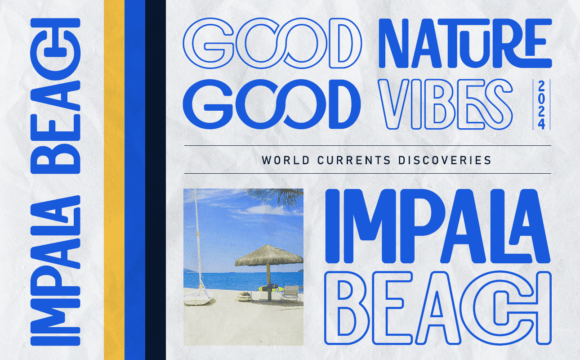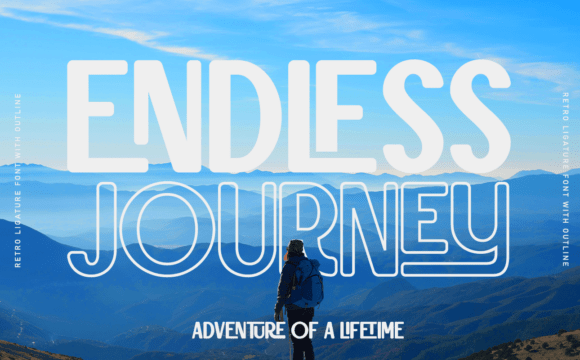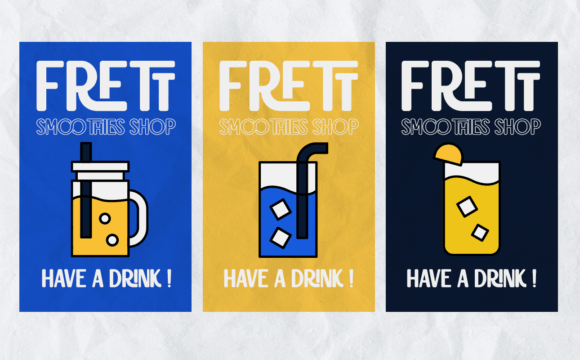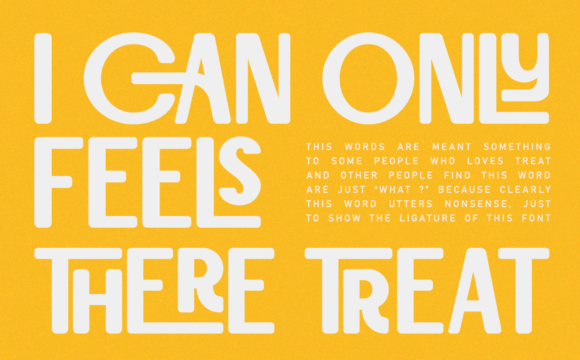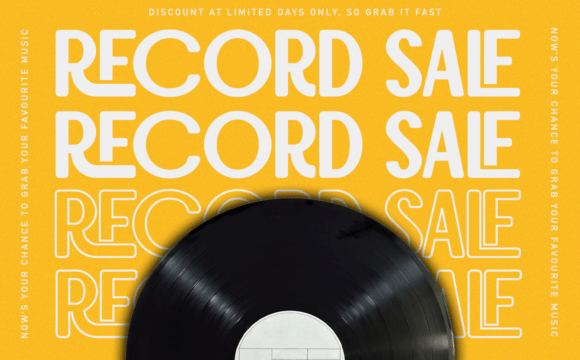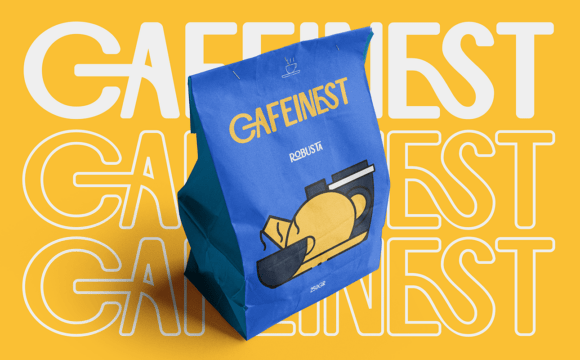
Introduction to Chiroto Font
Chiroto is a retro ligatures font inspired by the vibrant and nostalgic vibes of the 1980s retrowave culture.
This font encapsulates the energetic spirit of the era with its striking lines and retro aesthetics Ideal for projects that aim to evoke a sense of vintage cool, and perfect for both digital and print designs.